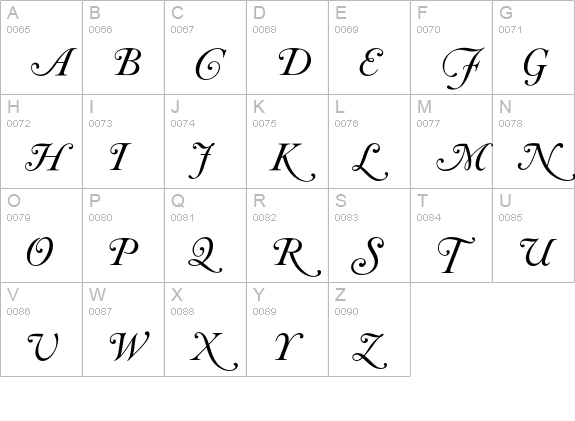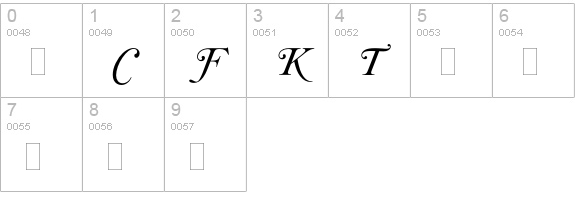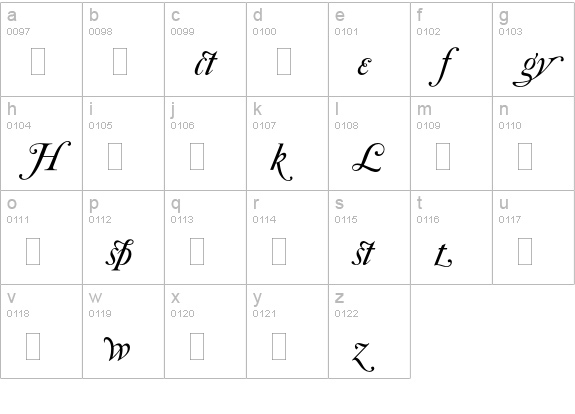
CaslonItalicSwashesPlain Font Details
CaslonItalicSwashesPlain is a beautifully crafted font that exudes elegance and sophistication. Its delicate italic swashes add a touch of flair and grace to any design project. Perfect for invitations, wedding stationery, and luxury branding, this font is sure to make a lasting impression. Best of all, CaslonItalicSwashesPlain is available for free download at FontsMarket.com. Now you can elevate your designs with this stunning font without breaking the bank. Don't miss out on the opportunity to add a touch of class to your projects with CaslonItalicSwashesPlain. Download it today and let your creativity shine!